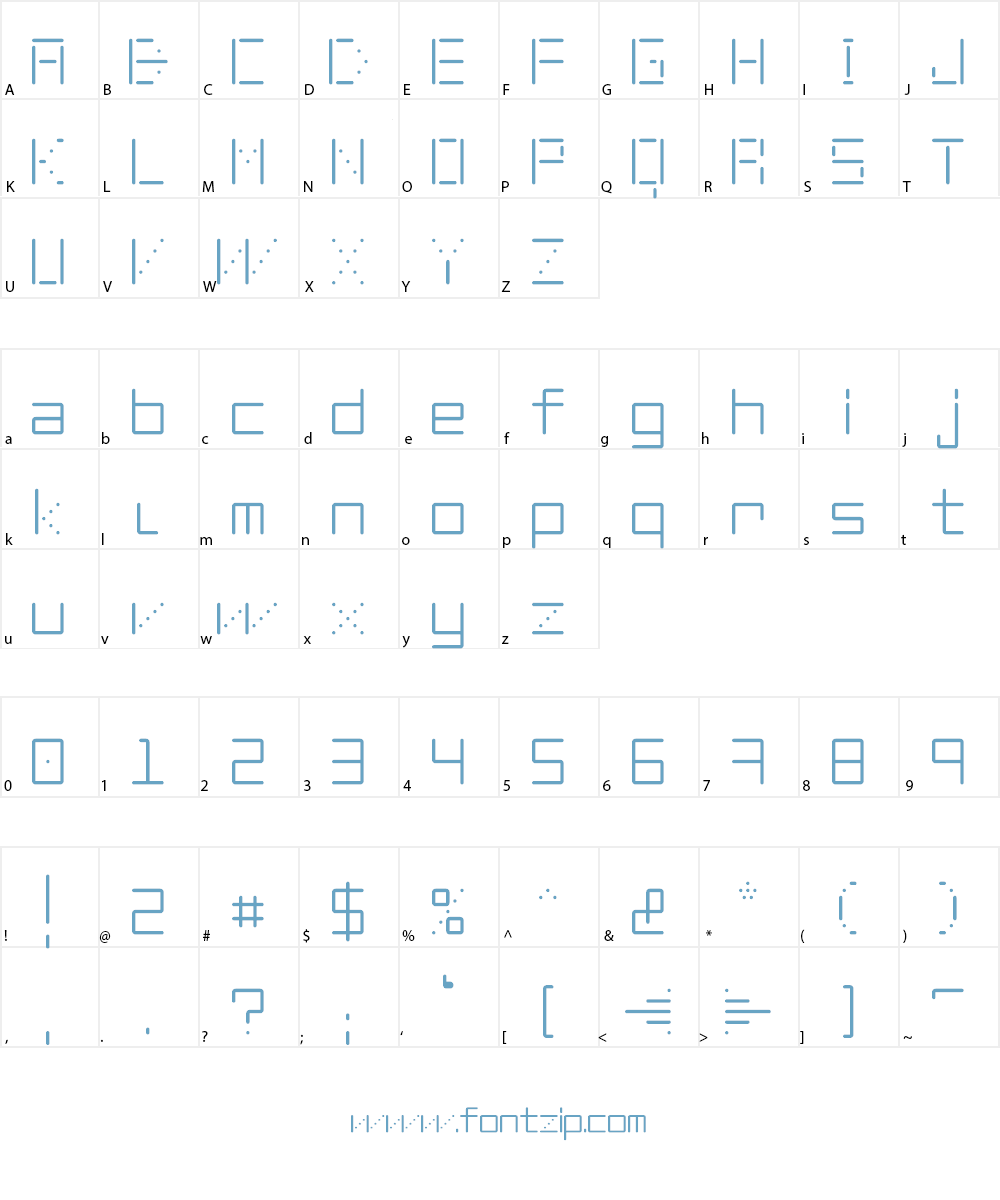
NewLife is a typeface with variable width characters created from a matrix of squares (17x21).
Glyphs: 212.
The NewLife typeface is available in two versions:
- NewLife-Square (with square ends).
- NewLife-Rounded (with rounded ends).